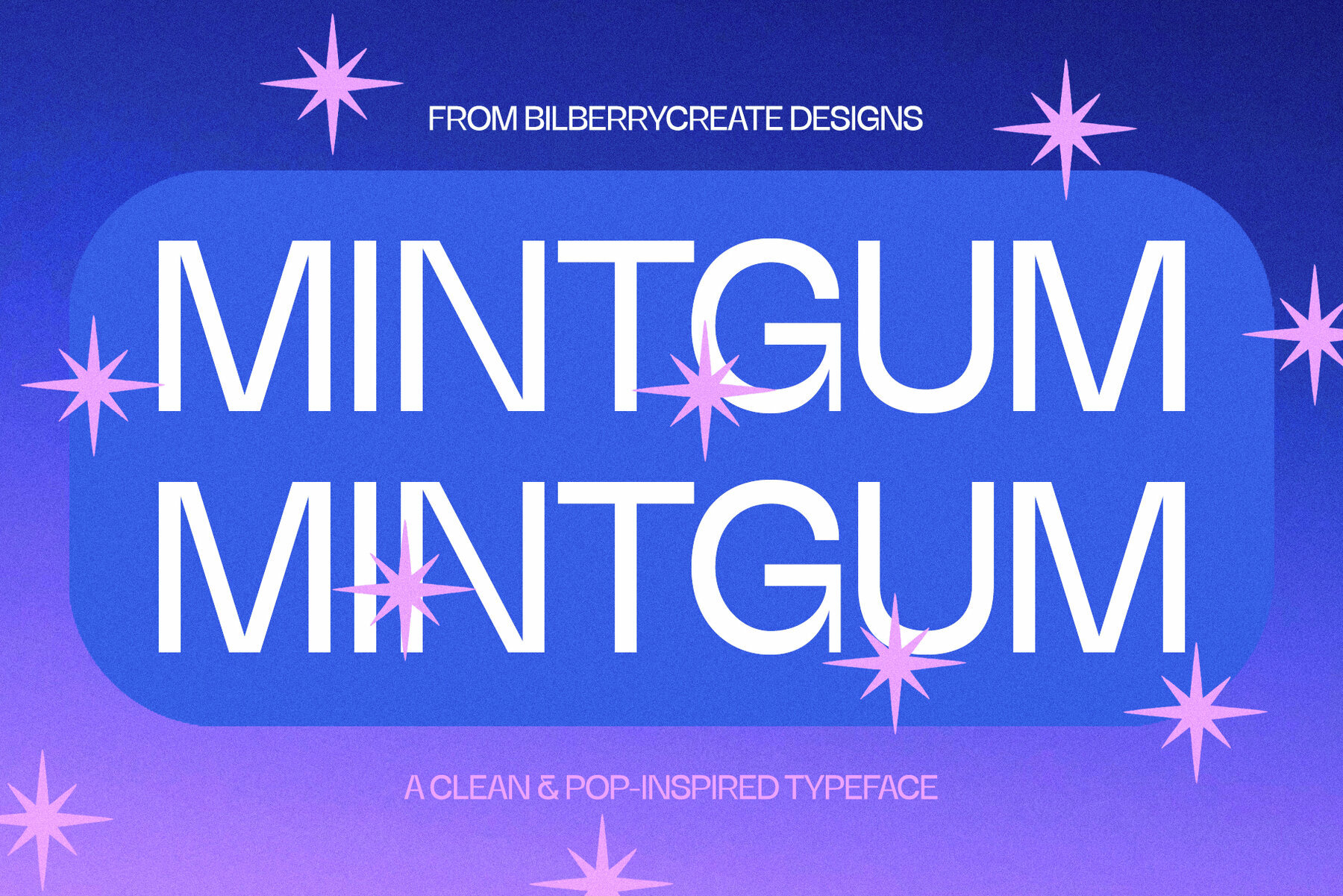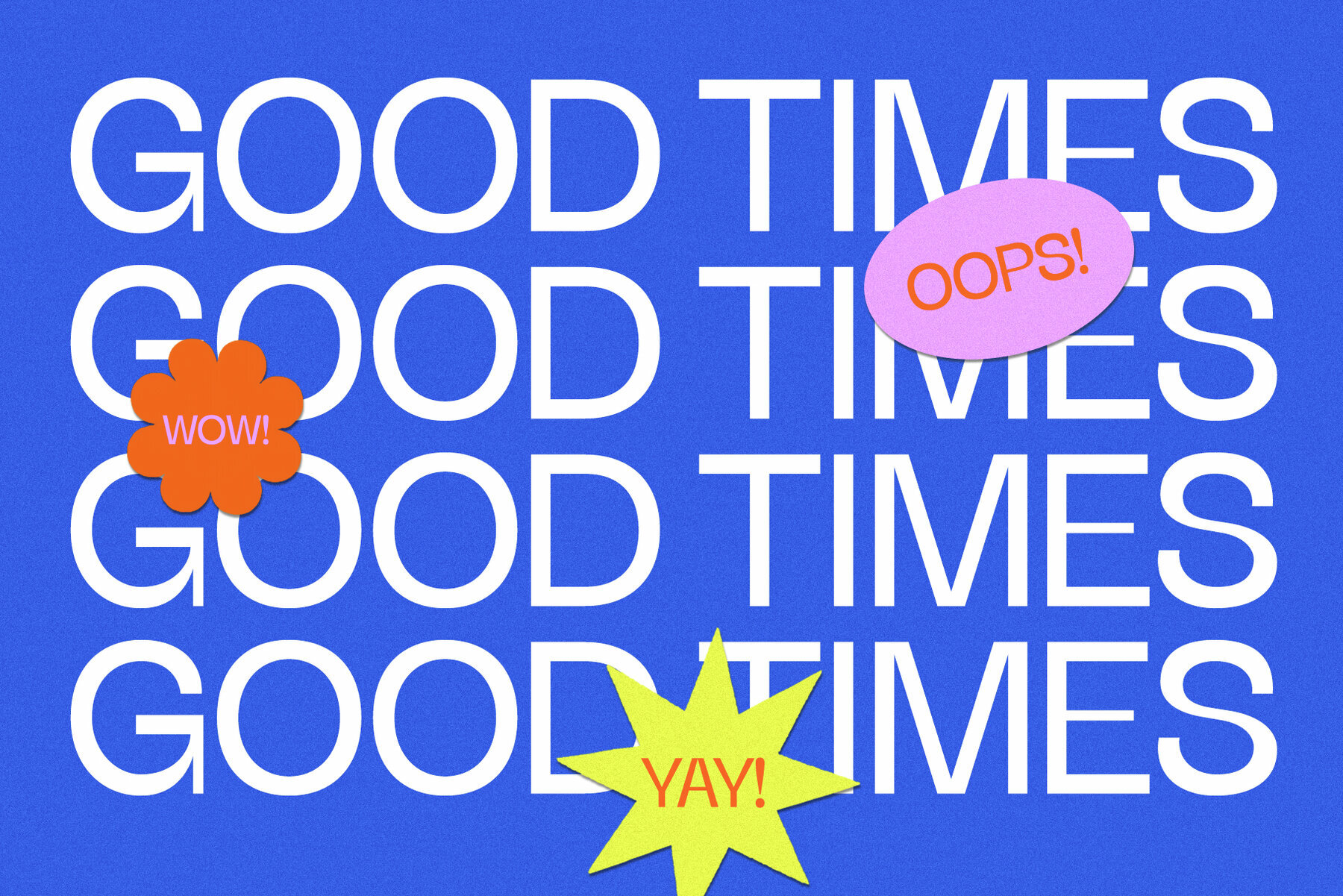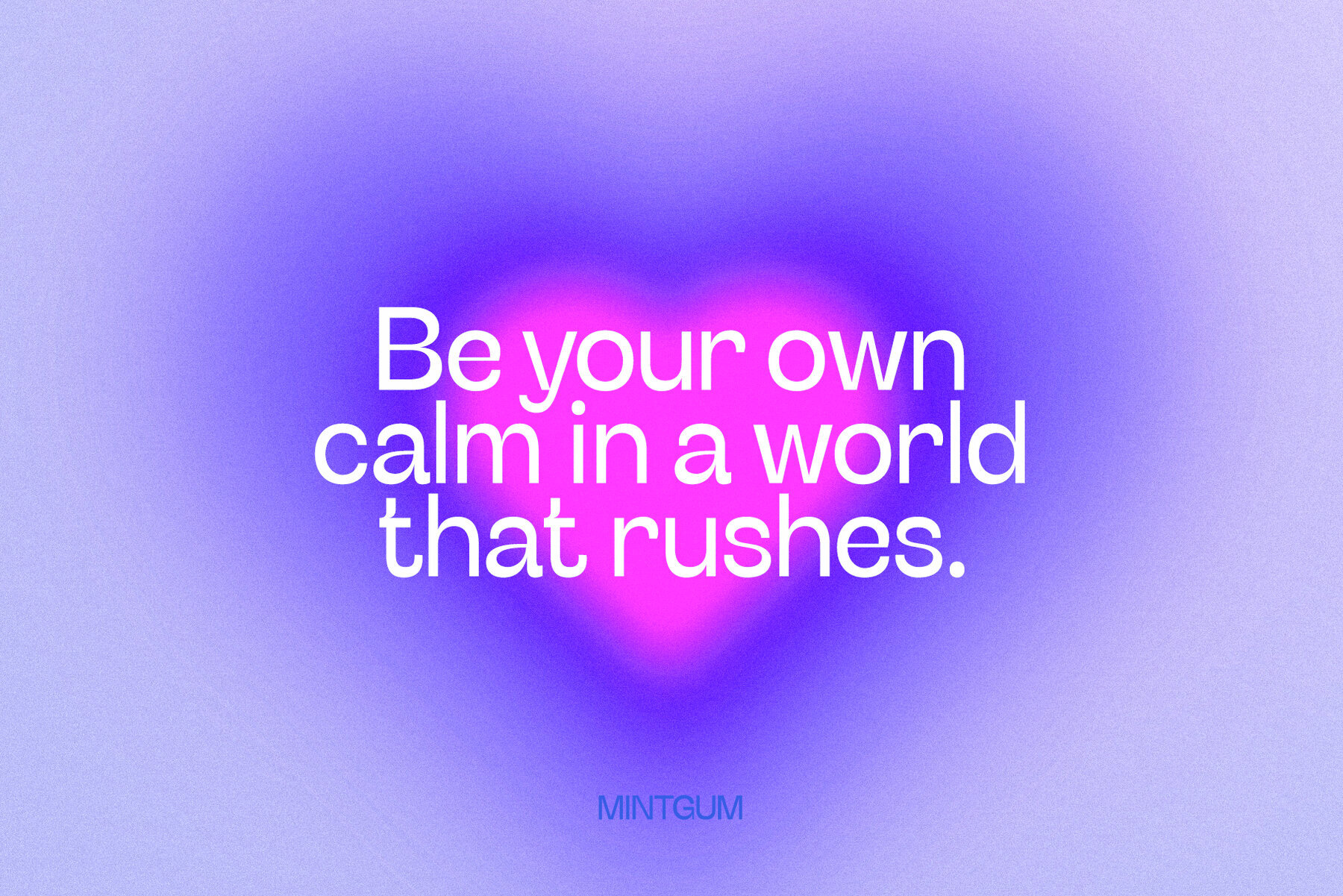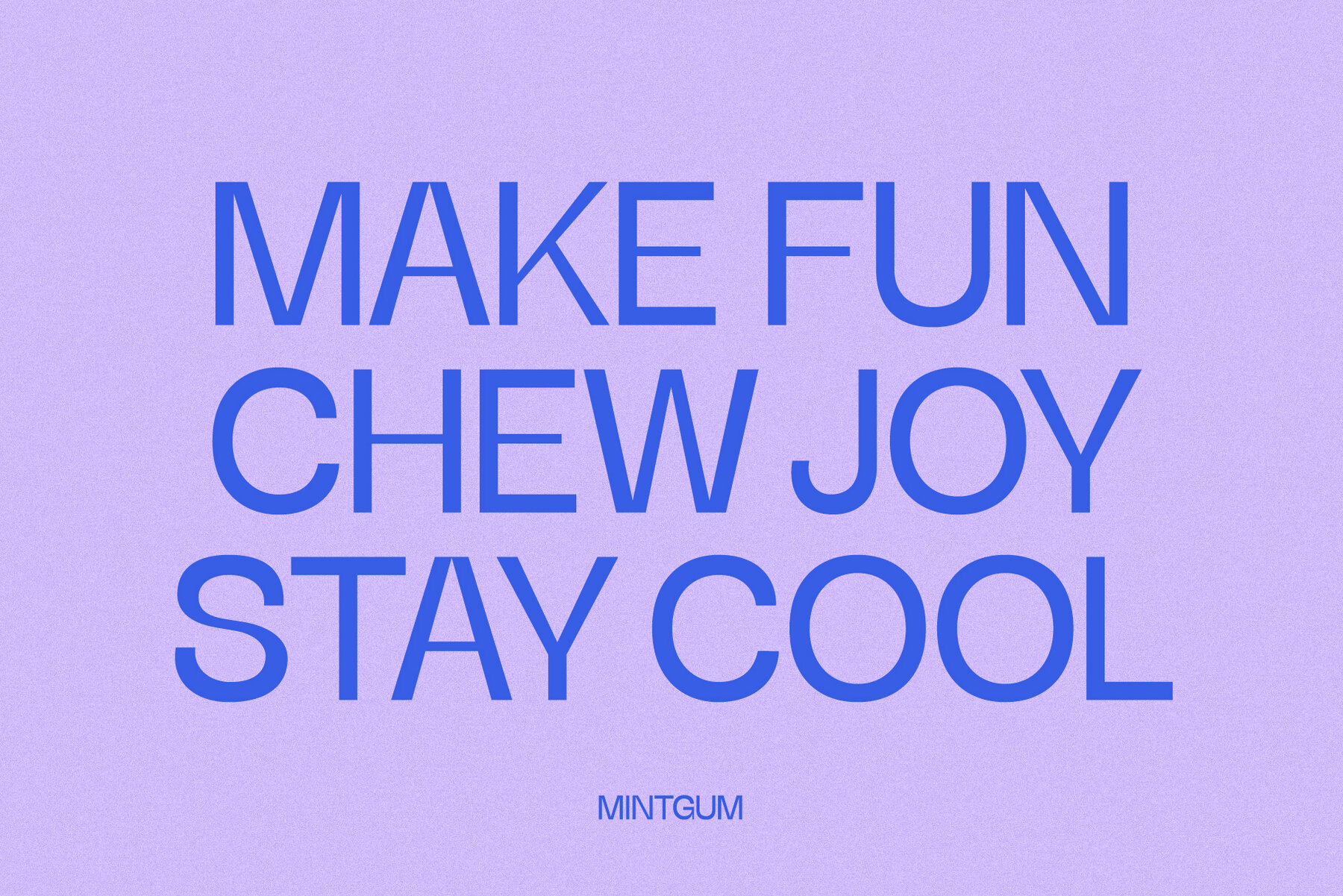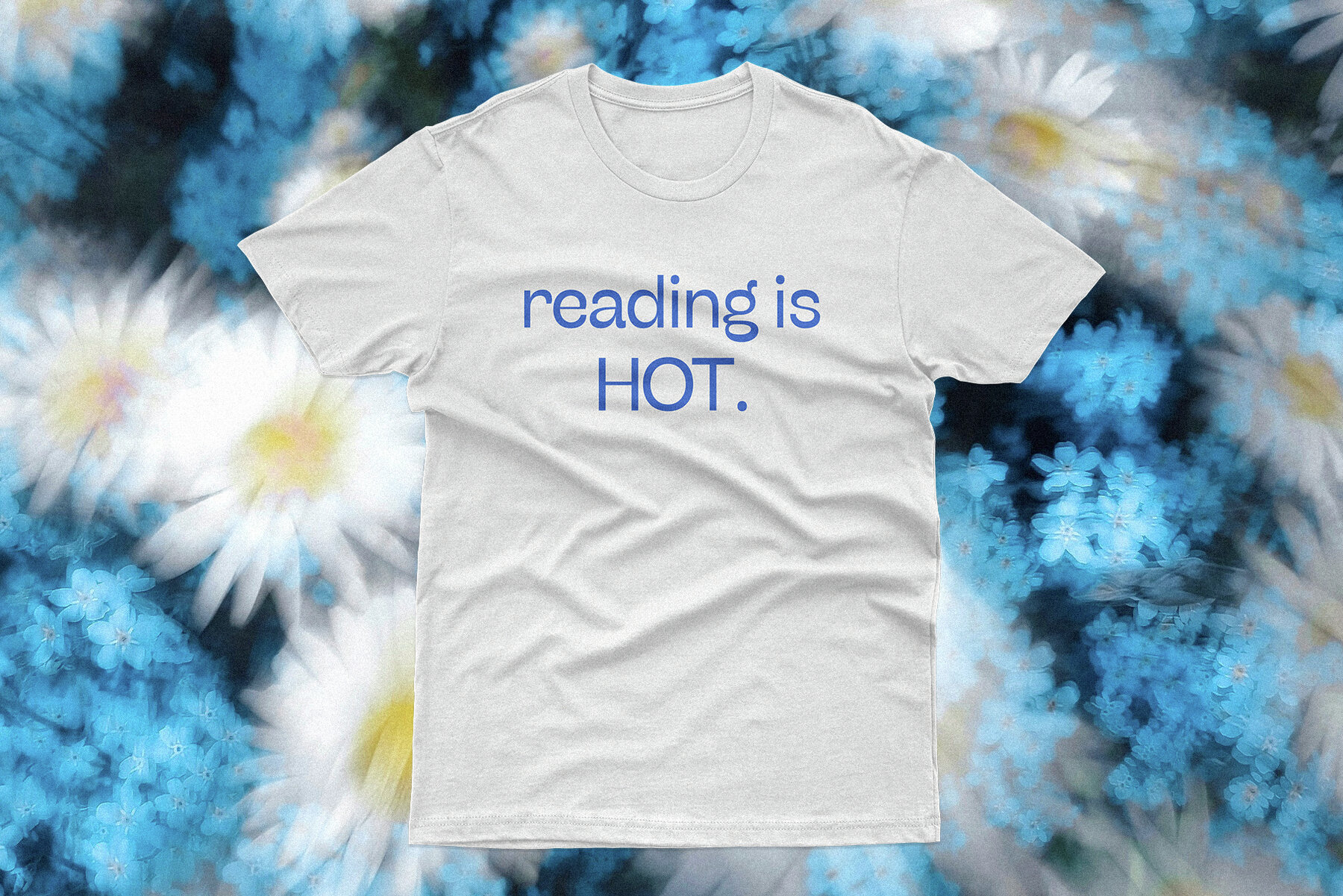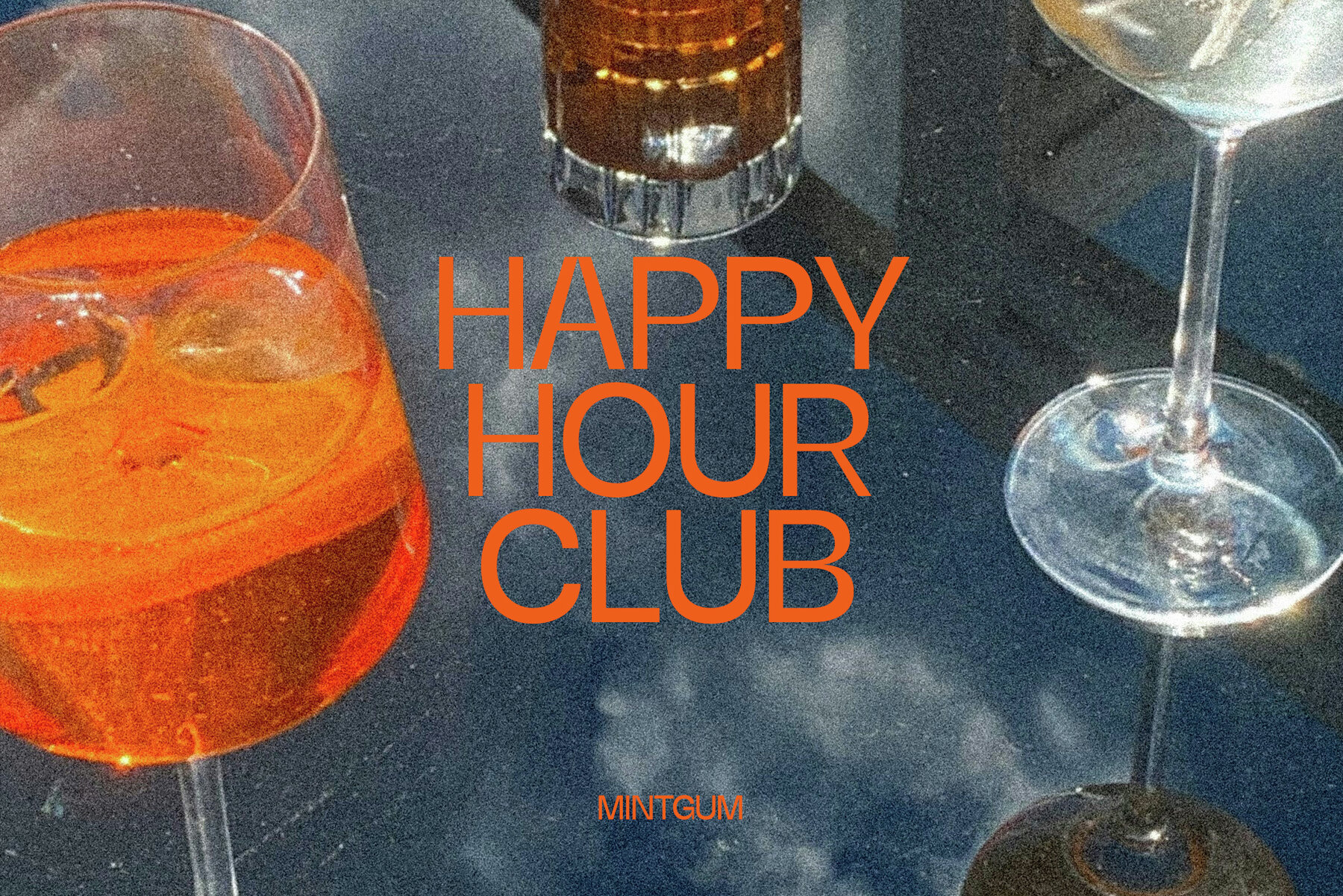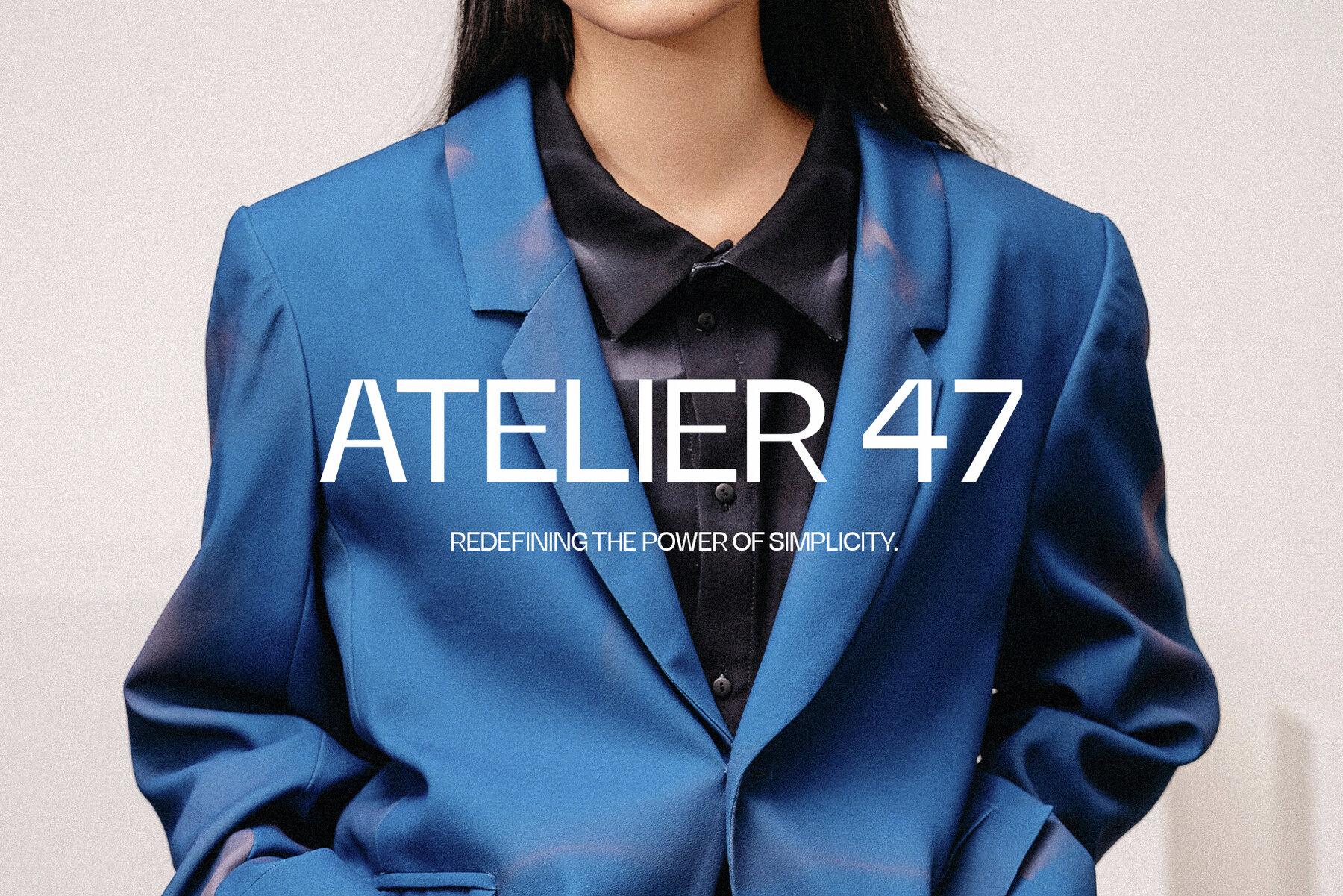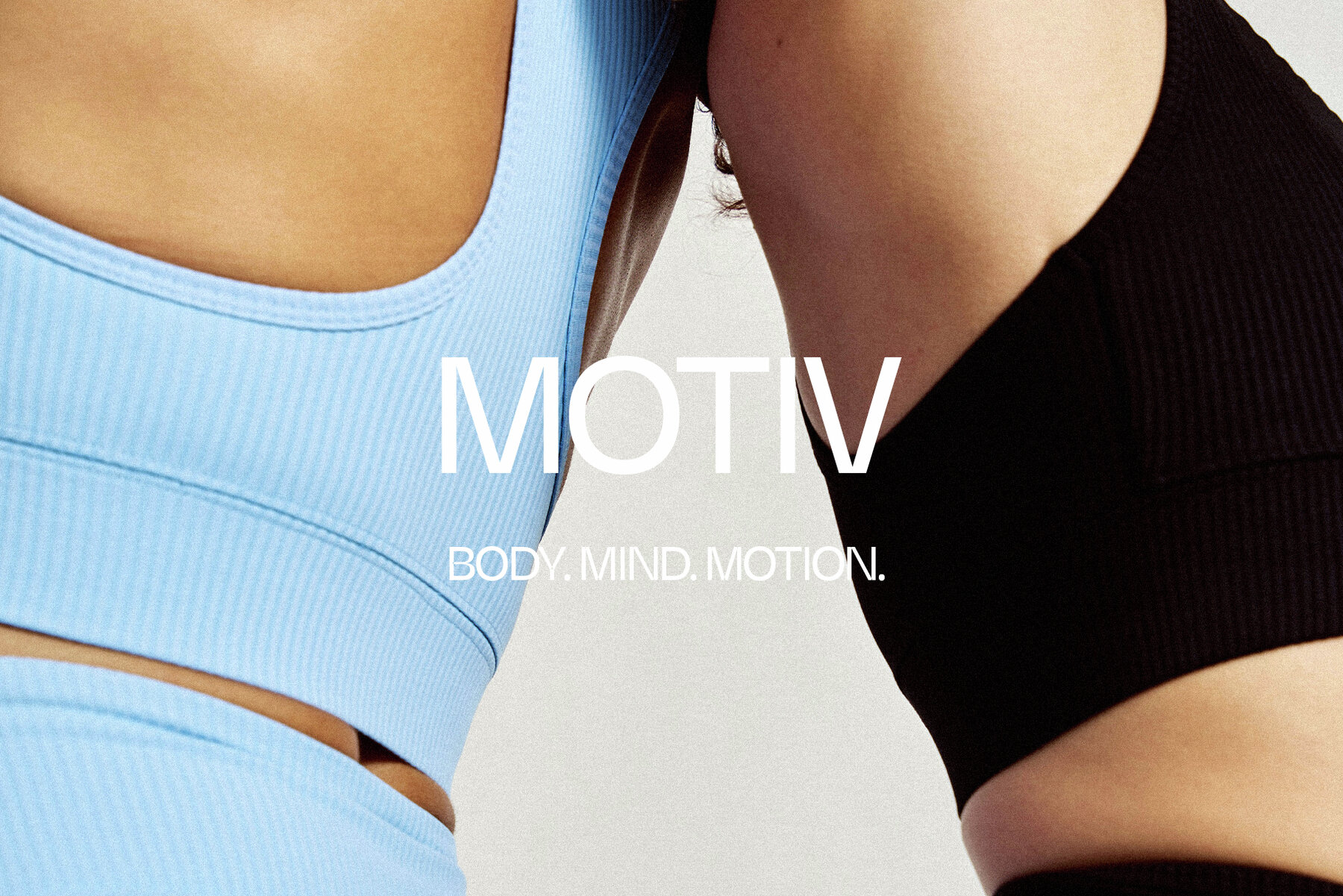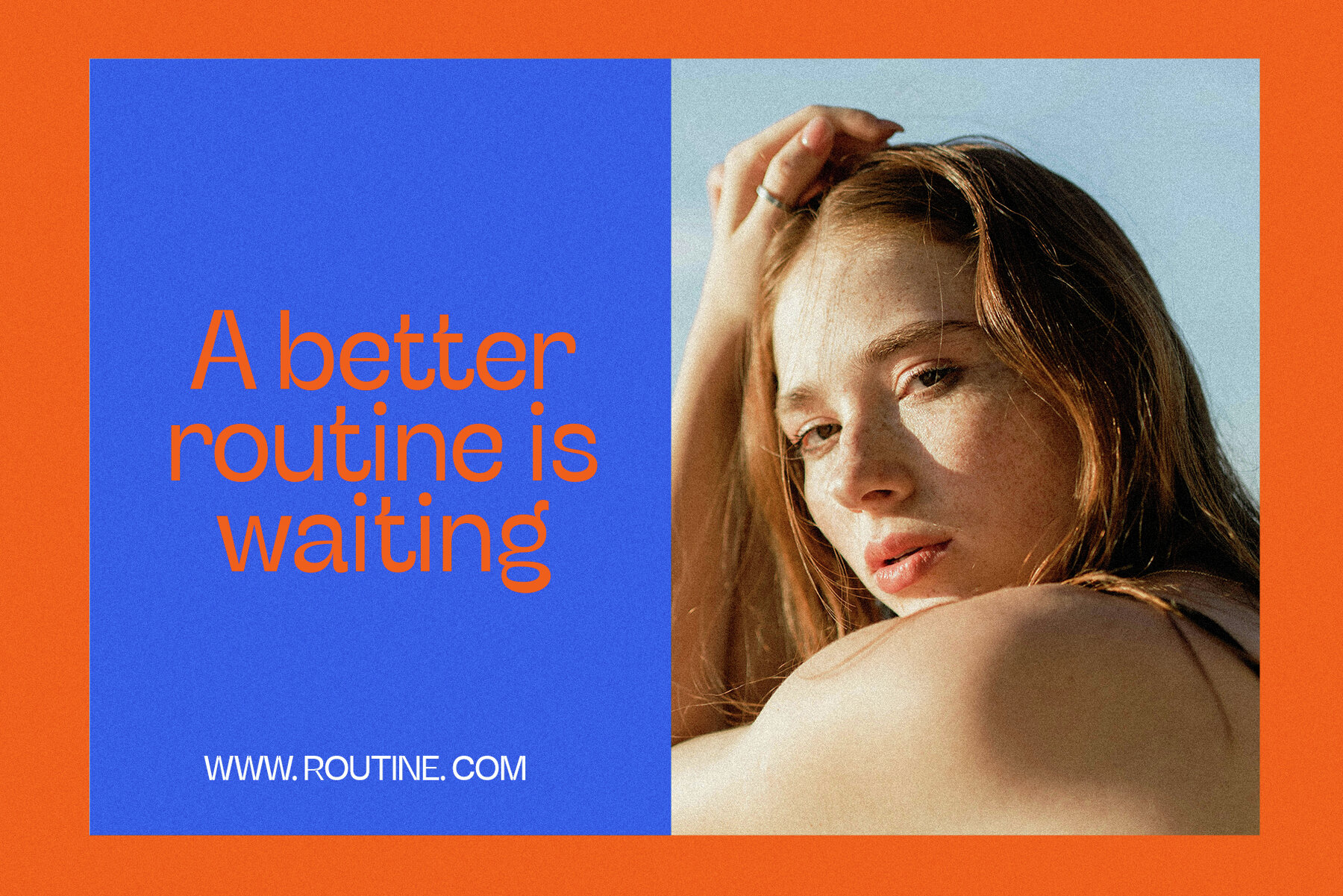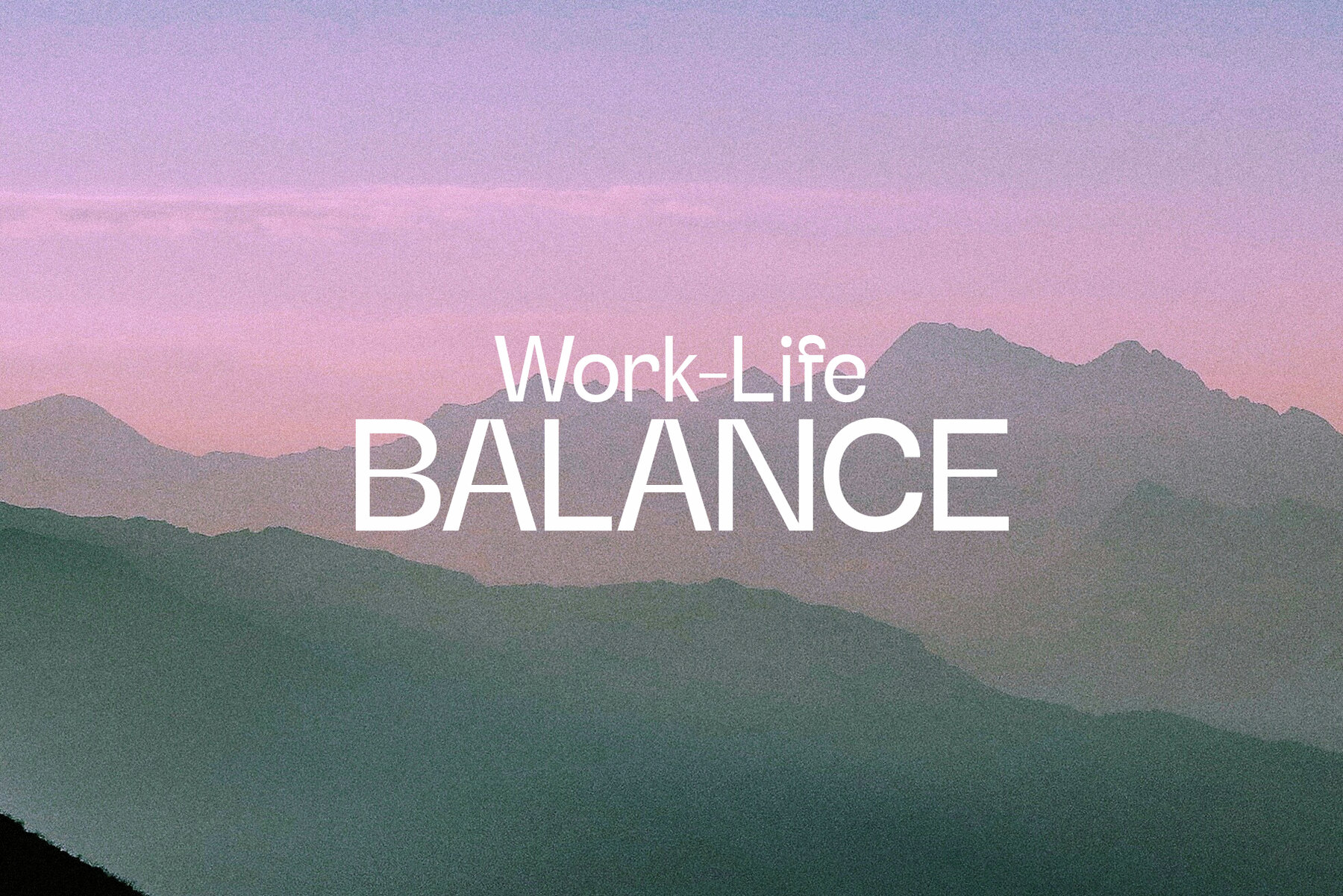
Mintgum Font
Mintgum Regular
Mintgum is a clean, sans-serif typeface shaped by the playful aesthetics of pop culture and the vibrant hues of soft candy. Its rounded forms and confident structure create a refreshing visual tone, making it a practical choice for branding, packaging, posters, social media graphics, and editorial layouts. This unique combination of stylish clarity and light-hearted appeal positions Mintgum as a contemporary solution for headline-driven designs. The typeface’s balance of energetic curves and modern simplicity ensures high readability while injecting visual interest. Whether set in bold headlines or distinctive logo designs, Mintgum complements both digital and print media, seamlessly aligning with projects where eye-catching type is essential.Mintgum: Playful Sans-Serif With Pop Art Influence